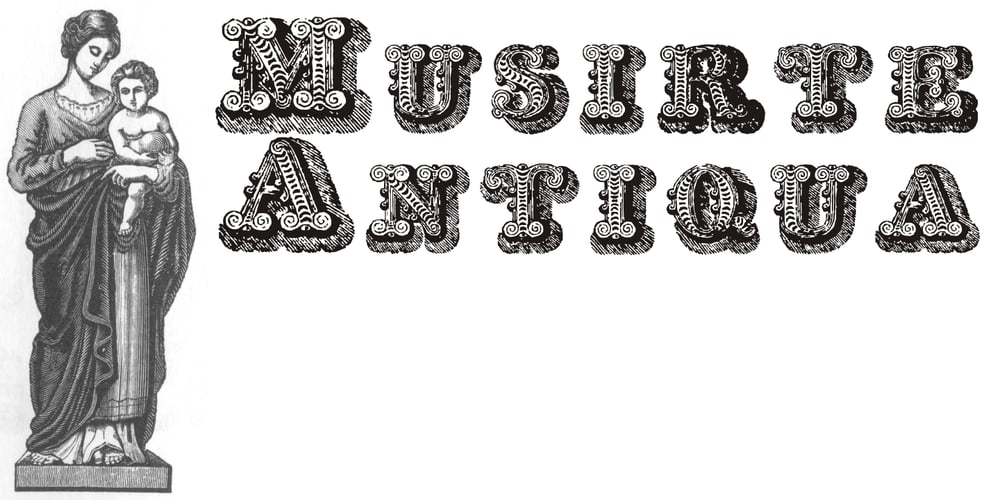
Musirte Antiqua Font Family was designed by Paulo W and published by Intellecta Design. Musirte Antiqua contains 2 styles and family package options. Musirte Antiqua is a decorative display font great for large header-like usage, a distressed font design by the type foundry Intellecta Design based in vintage typography from XIX century.